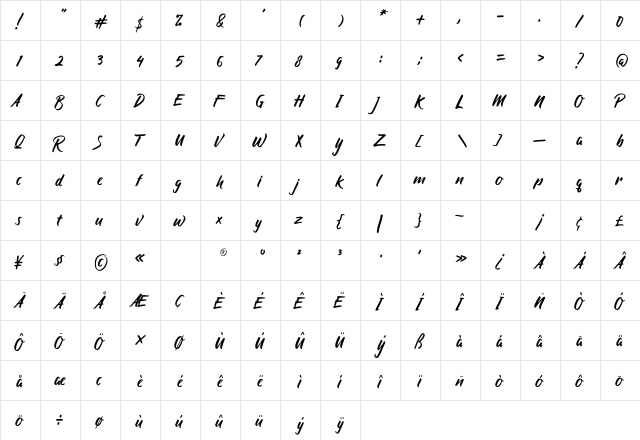
Ravimon Demo
| Designer | Ibey Design |
Design Context for Ravimon Typeface
Ravimon is a composed and adaptable typeface that performs quietly and consistently across a wide range of design contexts.